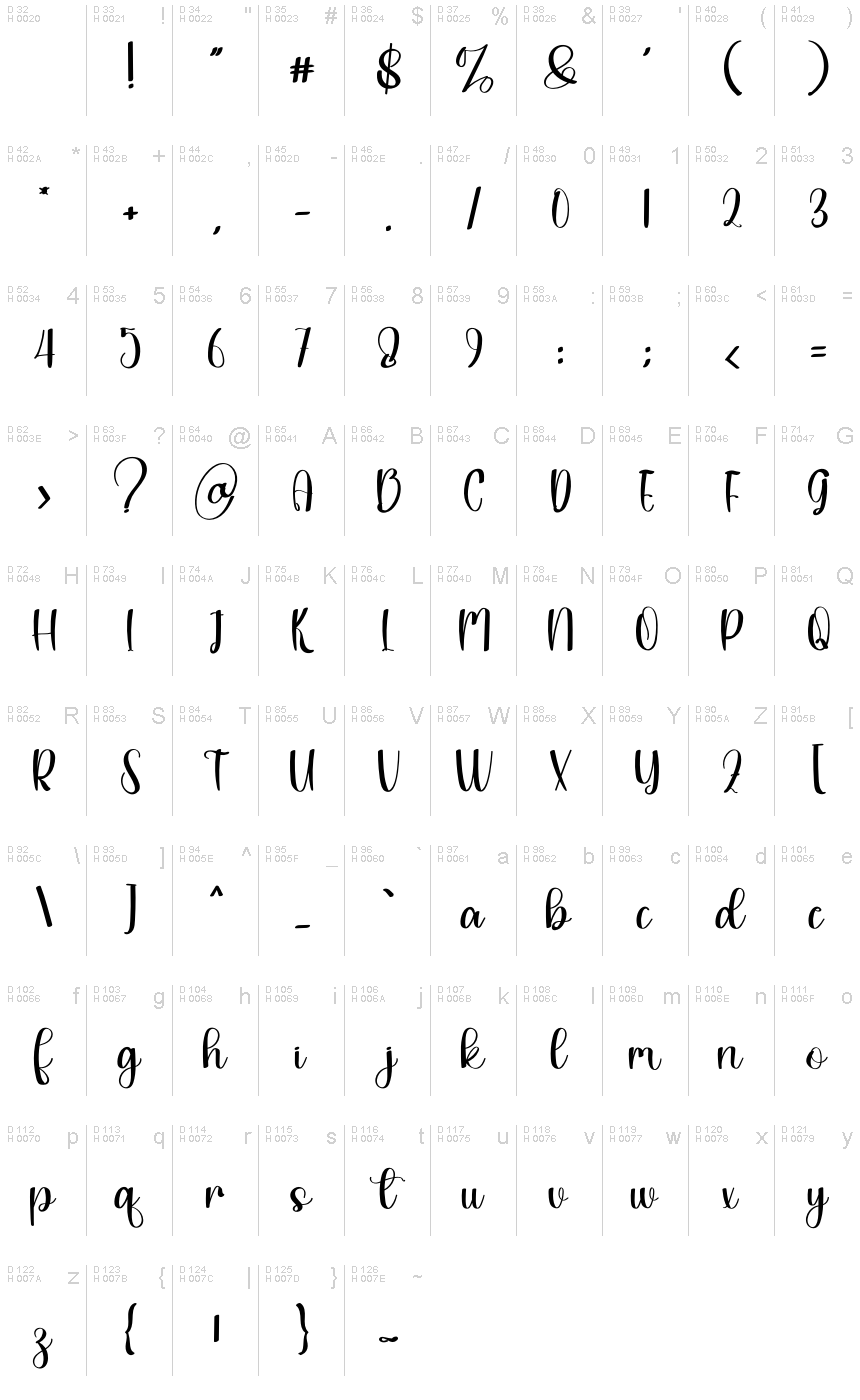
Wheel
Wheel is a captivating handwritten font designed by PiPi Creative. Its bold, organic strokes and fluid, expressive forms exude a sense of effortless sophistication. The font's distinctive character seamlessly blends traditional calligraphic influences with a modern, playful flair, making it a versatile choice for a wide range of design applications.
Wheel's alluring aesthetic lends itself beautifully to headers, titles, and promotional materials, adding a touch of artisanal charm to any project. Its natural, hand-crafted appearance can elevate branding, packaging, and editorial layouts, infusing them with a sense of authenticity and visual interest.